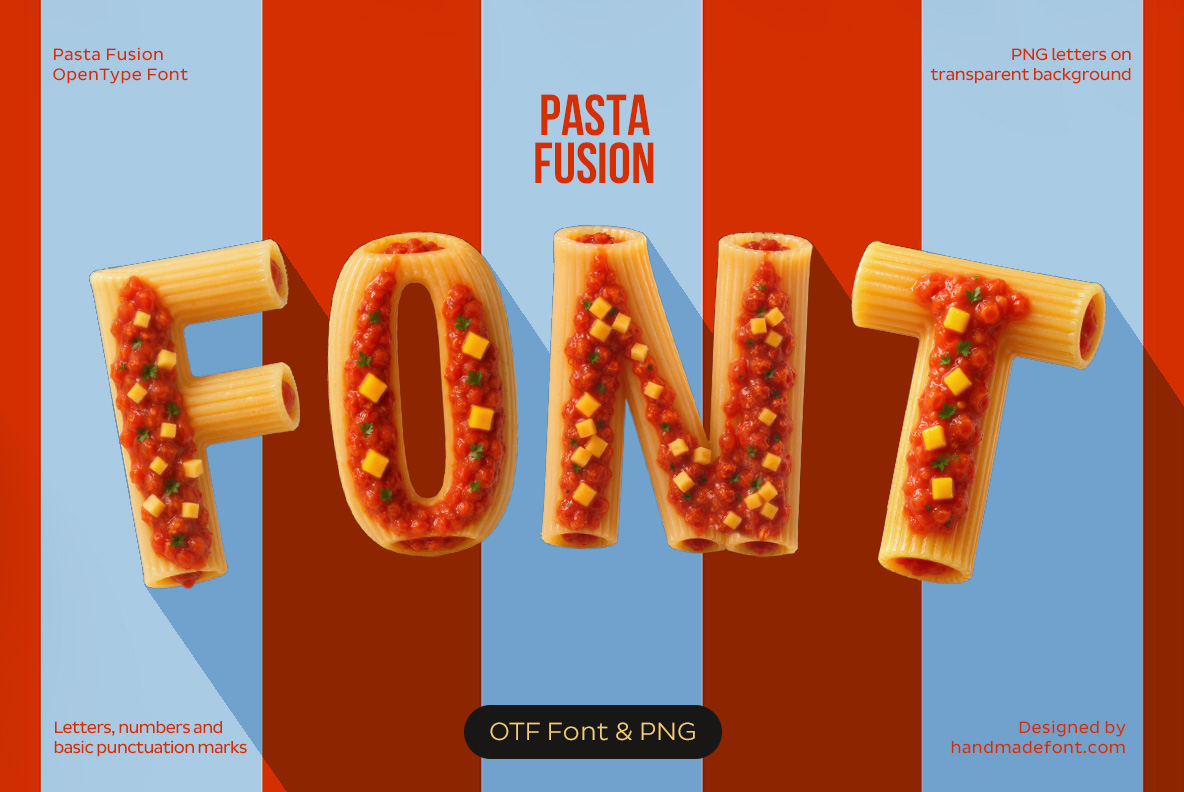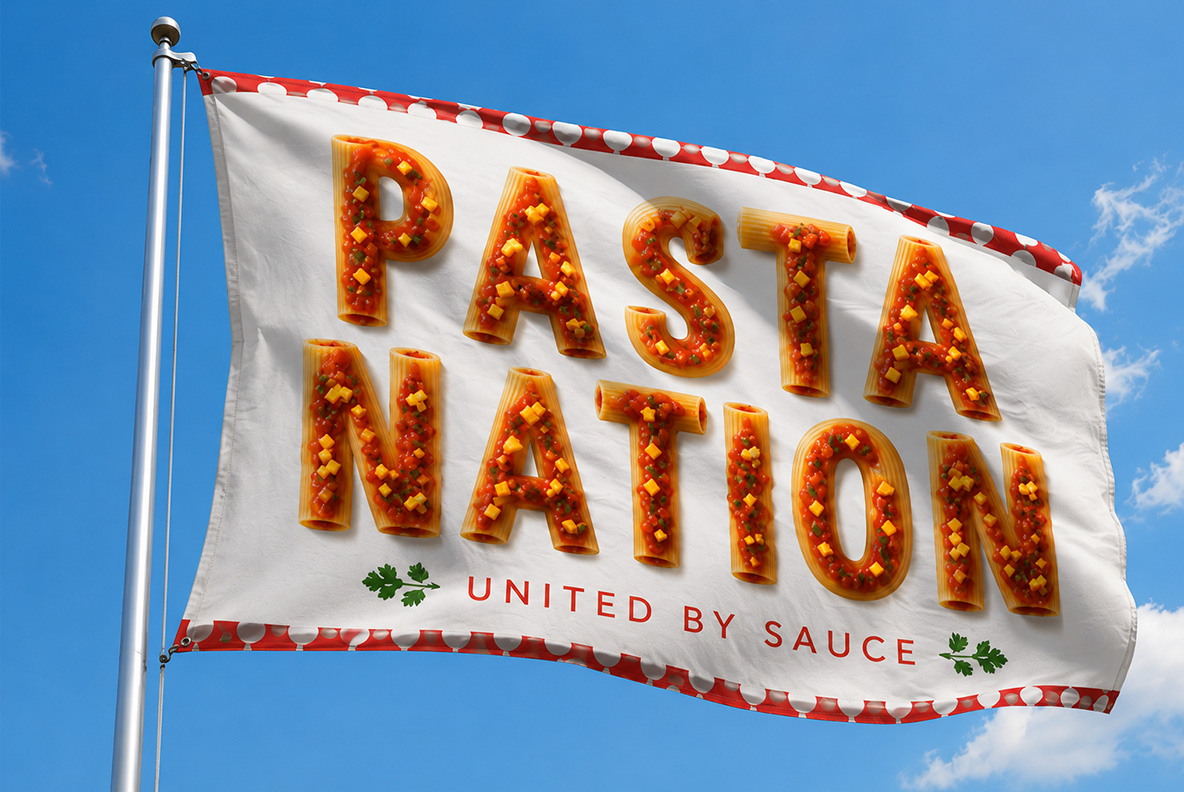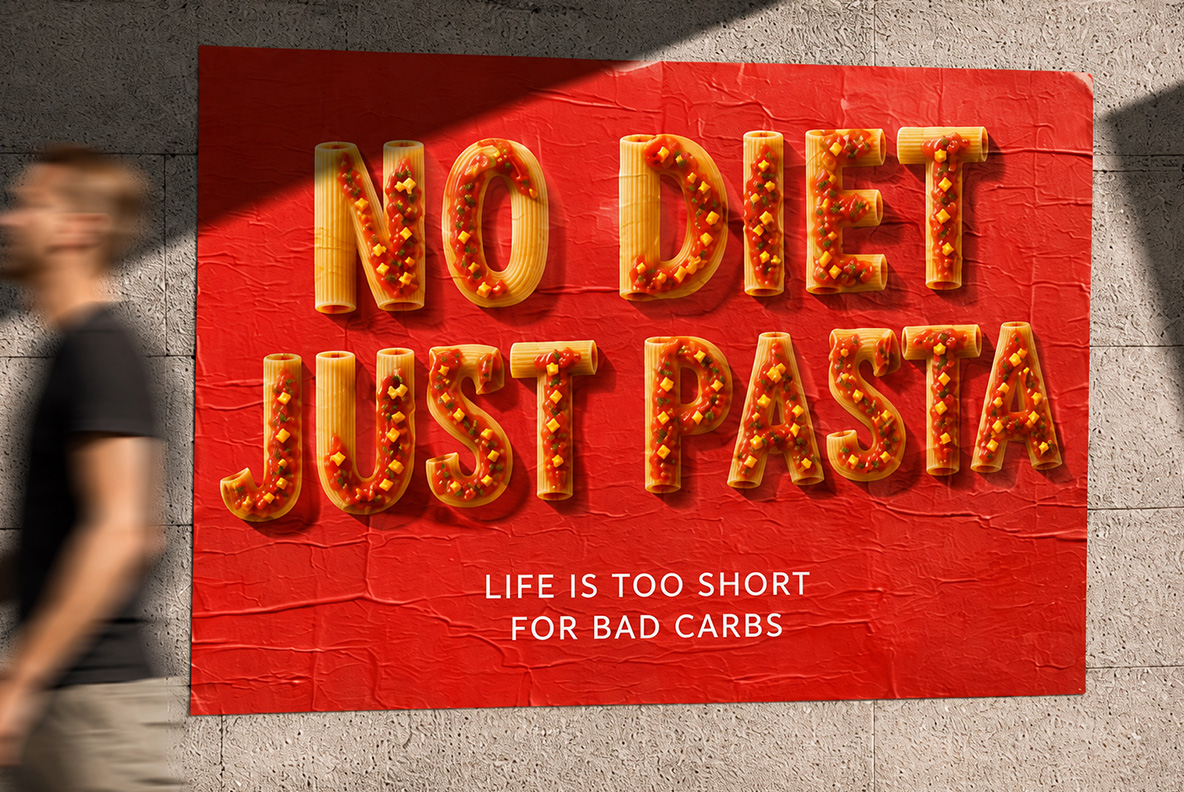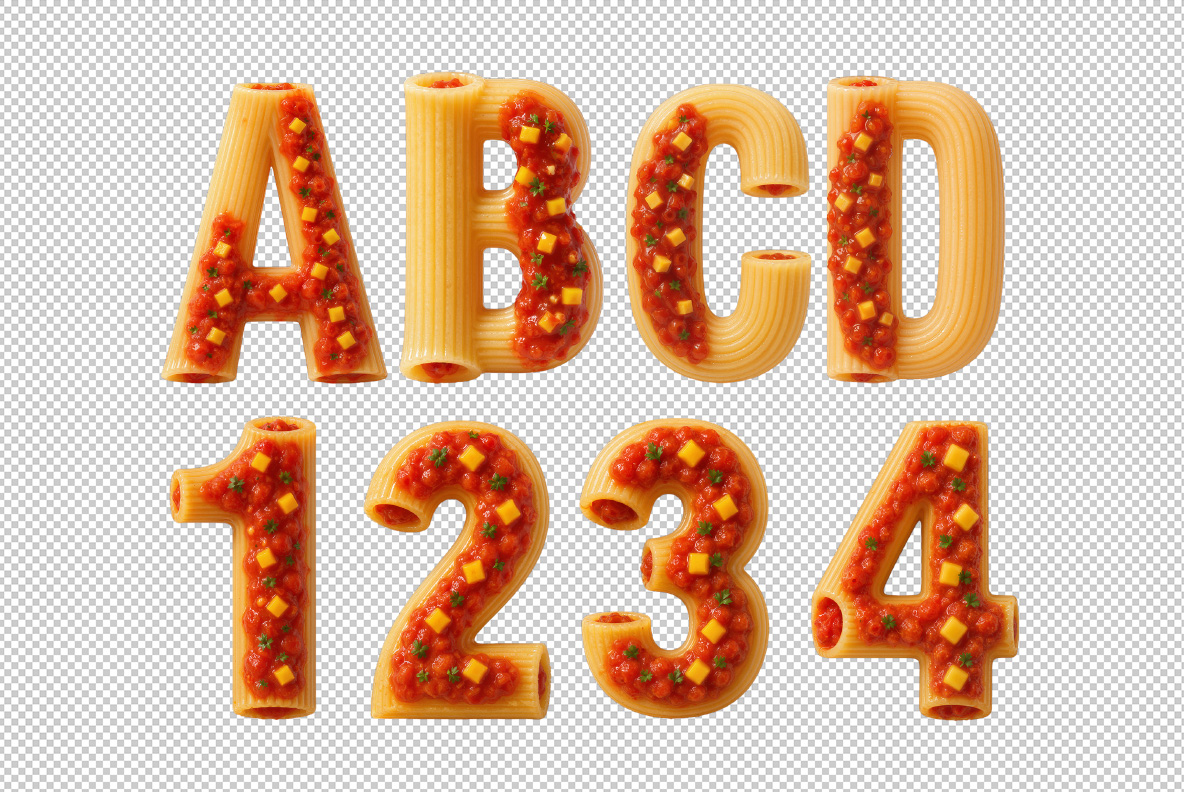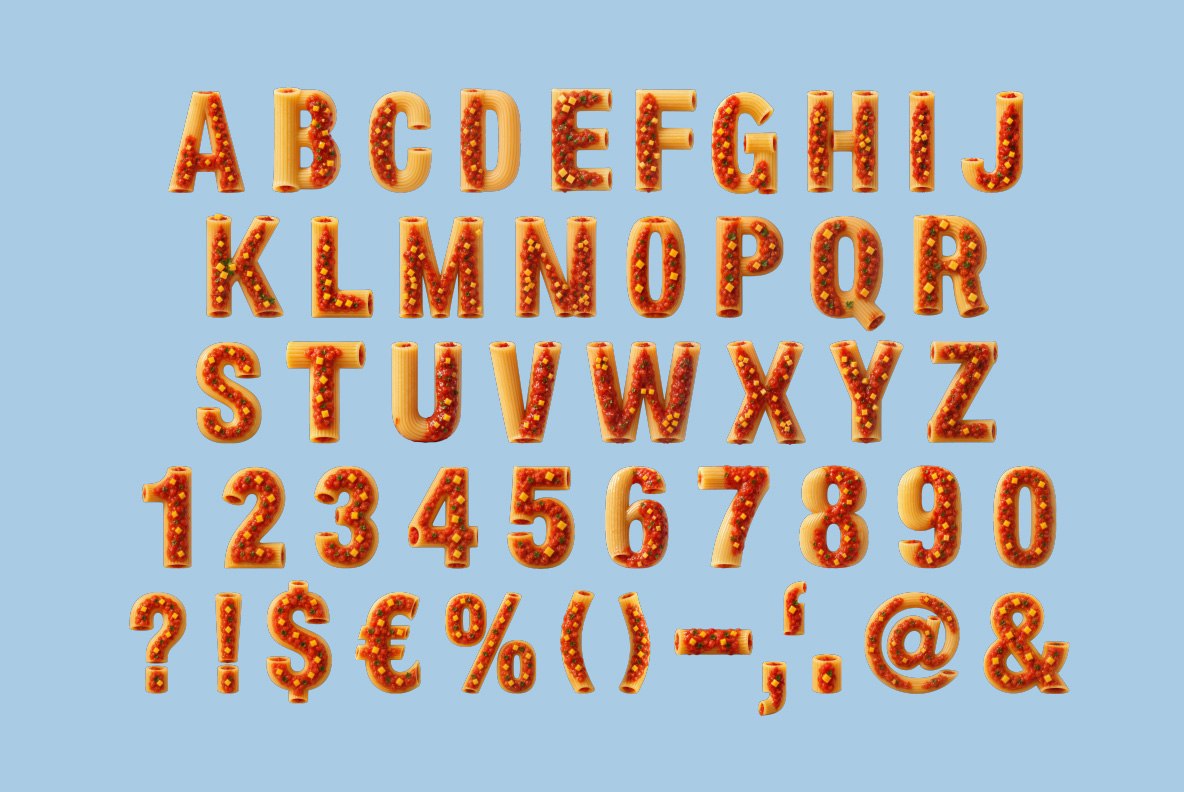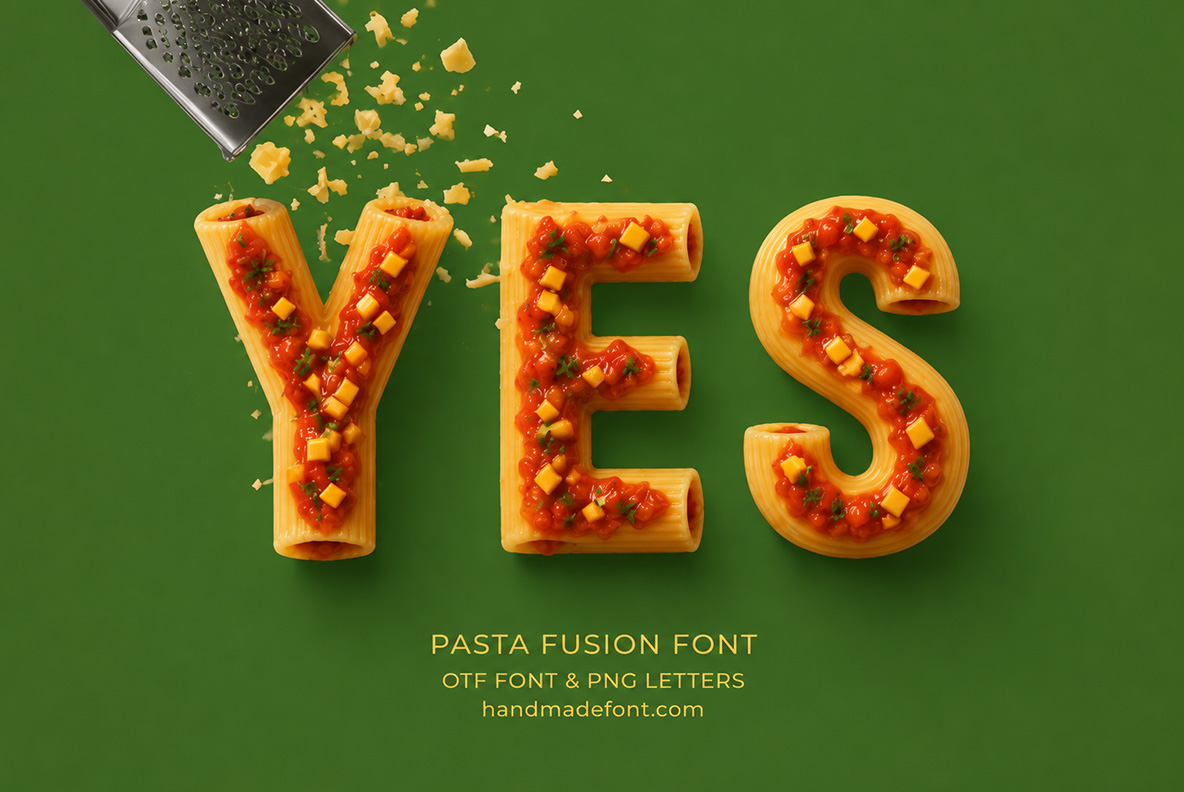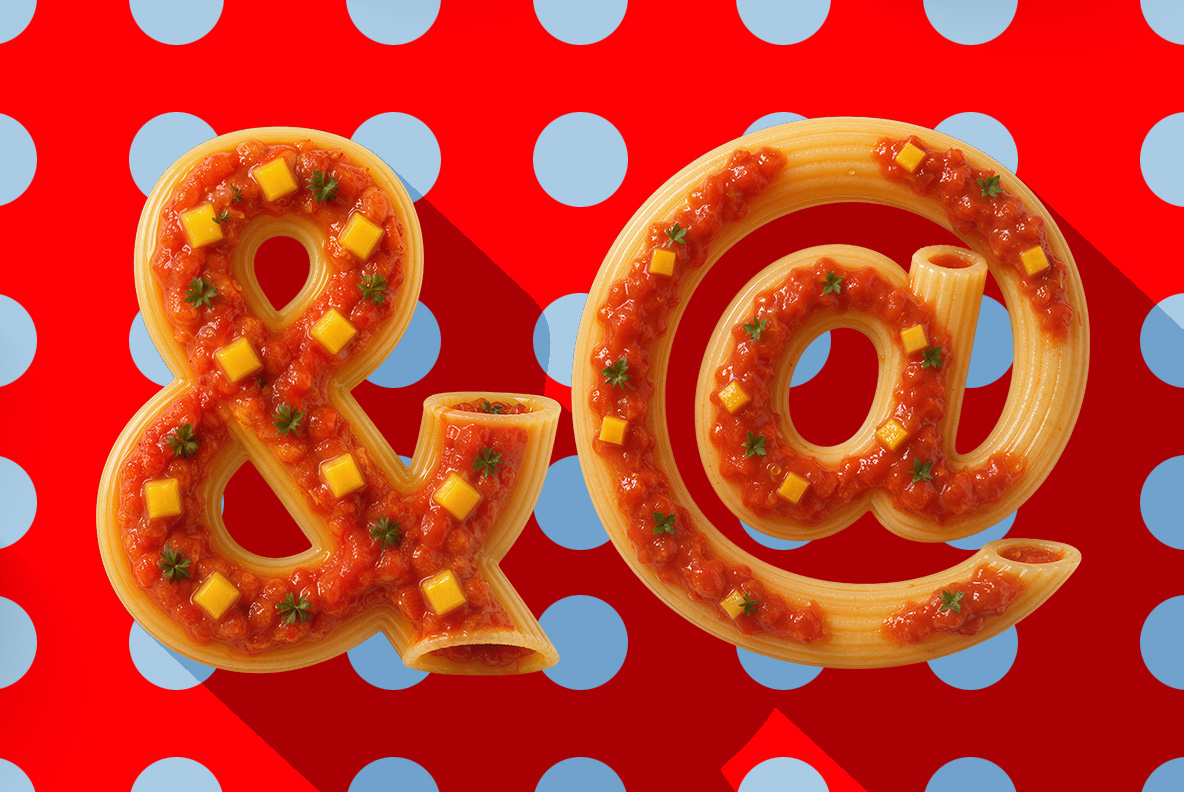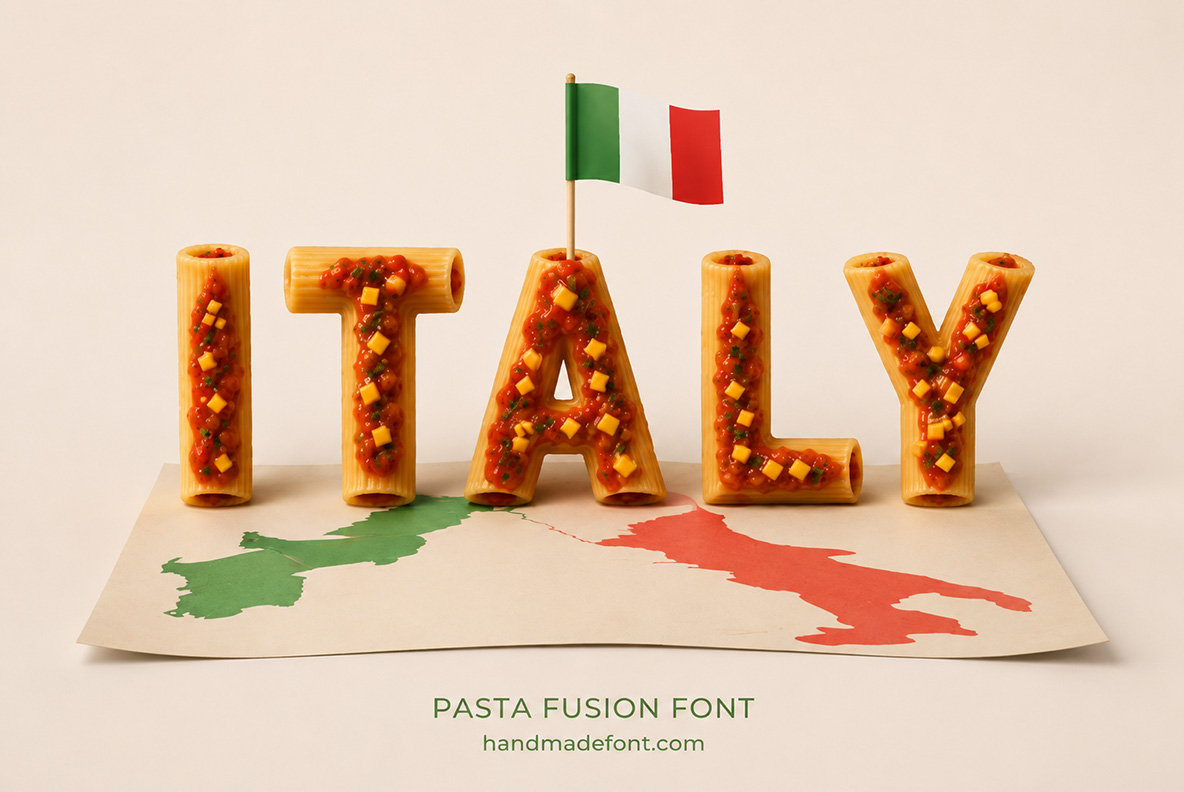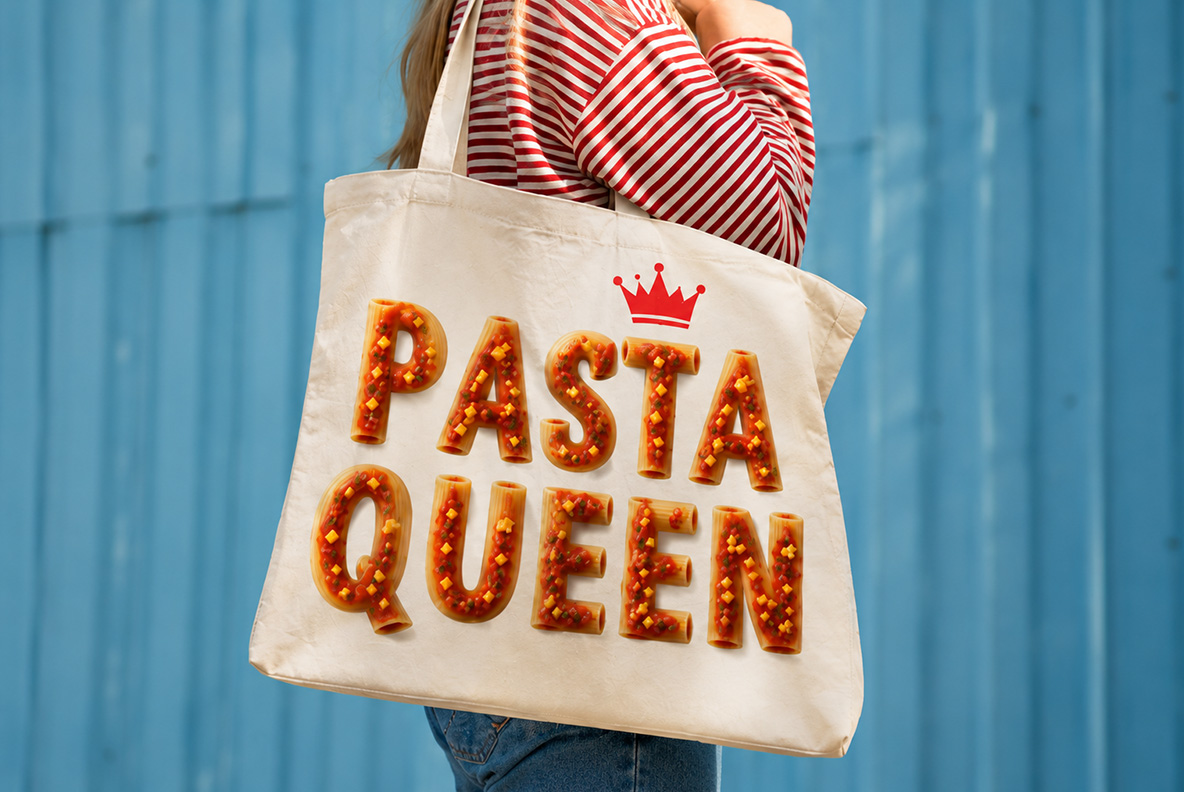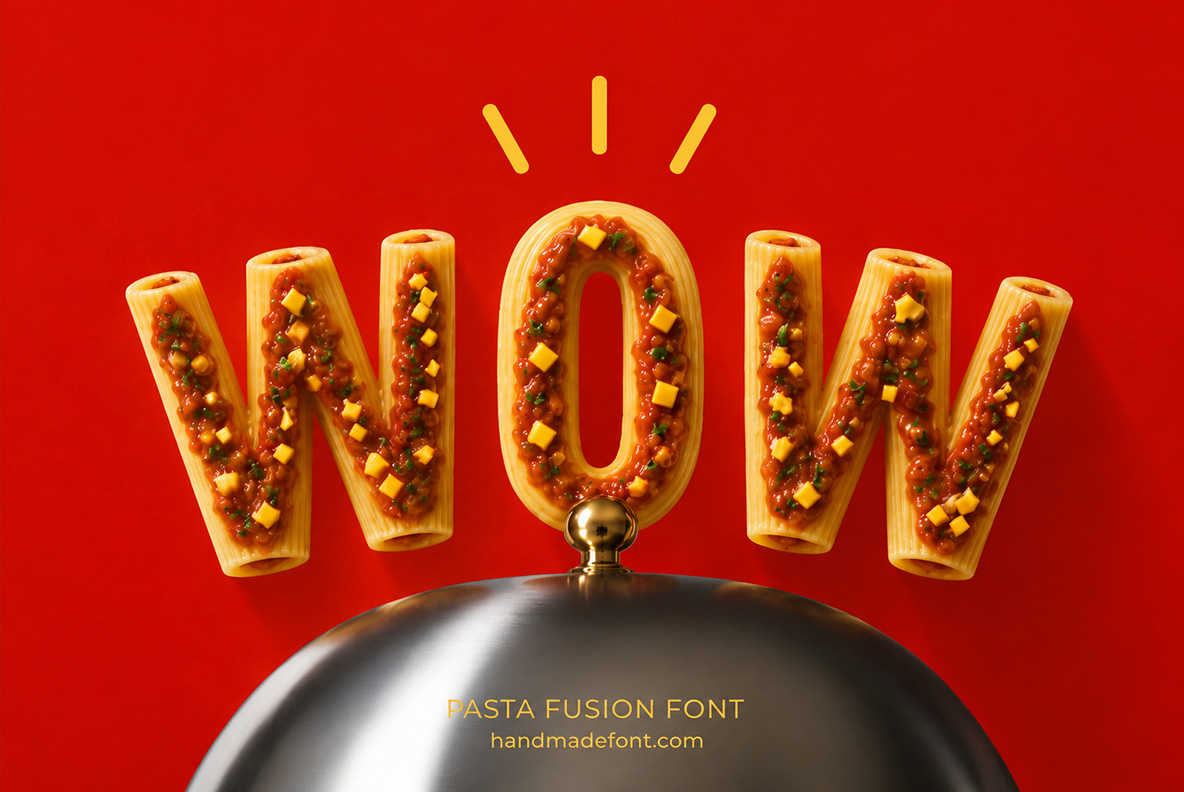
Pasta Fusion Font – Rigatoni Letters Drenched in Tomato and Cheese
Pasta Fusion Font turns every letter into a rigatoni noodle smothered in tomato sauce, melted cheese cubes, and a scatter of parsley — the kind of alphabet that looks like it just came off the stove. Perfect for menus, food packaging, and any design that wants to smell like garlic before it even loads. The set includes a ready-to-type OTF plus individual transparent PNG letters for pixel-perfect layouts.
A Noodle for Every Letter
Pasta Fusion Font takes the humble rigatoni and turns it into a full alphabet, each letter piped with tomato sauce, dotted with melted cheese cubes, and finished with a pinch of parsley. It’s less a typeface and more a second helping — the kind of lettering that makes you hungry before you’ve read a single word. Every curve and tube is rendered in convincing 3D, right down to the ridges on the pasta and the glisten of the sauce, so the letters read as food first and type second. Numbers and basic punctuation get the same saucy treatment, so nothing on the page looks like an afterthought.
Animated preview of Pasta Fusion Font showing its saucy rigatoni pasta letters in motion.
Menus, Packaging, and Anything That Should Smell Like Garlic
This font was built for restaurant menus, food delivery apps, and pasta packaging that wants to sell itself on looks alone. Bistro chalkboards, Instagram posts, tote bags for the self-declared Pasta Queen, street posters proud enough to declare no diet, just pasta — wherever a design needs a little Italian theatre, these letters bring it. Every character renders at high resolution, so headlines stay crisp on a shopfront banner or a phone screen, and the transparent background drops them onto any backdrop without a stray white box trailing behind.
Pasta Fusion Font hero image spelling FONT in tomato-sauce rigatoni letters with OTF and PNG file details.
Complete uppercase alphabet, numbers and punctuation marks of Pasta Fusion Font rendered in saucy pasta letters.
The word YES in Pasta Fusion Font letters with fresh cheese being grated on top on a green background.
Close-up of the ampersand and at symbols from Pasta Fusion Font on a red polka-dot background.
The word ITALY spelled in Pasta Fusion Font letters standing on a paper cutout map of Italy.
Tote bag mockup reading PASTA QUEEN in Pasta Fusion Font letters with a small crown graphic.
The word WOW in Pasta Fusion Font letters balanced on a silver serving-dish cloche.
Magazine spread mockup featuring Pasta Fusion Font spelling TWIST LICK REPEAT beside a plate of twirled spaghetti.
The word EAT in Pasta Fusion Font letters next to a fork twirled with spaghetti on a light blue background.
Flag mockup reading PASTA NATION in Pasta Fusion Font letters with the tagline United By Sauce.
Street poster mockup on a concrete wall reading NO DIET JUST PASTA in Pasta Fusion Font letters.
Close-up of the letters A, B, C, D and numbers 1 to 4 from Pasta Fusion Font on a transparent background.